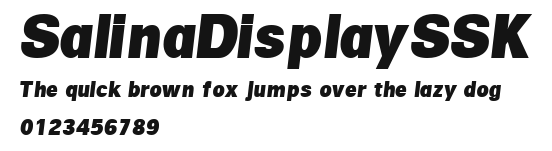
About SalinaDisplaySSK.ttf
SalinaDisplaySSK.ttf is a modern, elegant sans-serif font designed for ultimate readability and visual harmony. Perfect for branding, headlines, web design, and print materials.